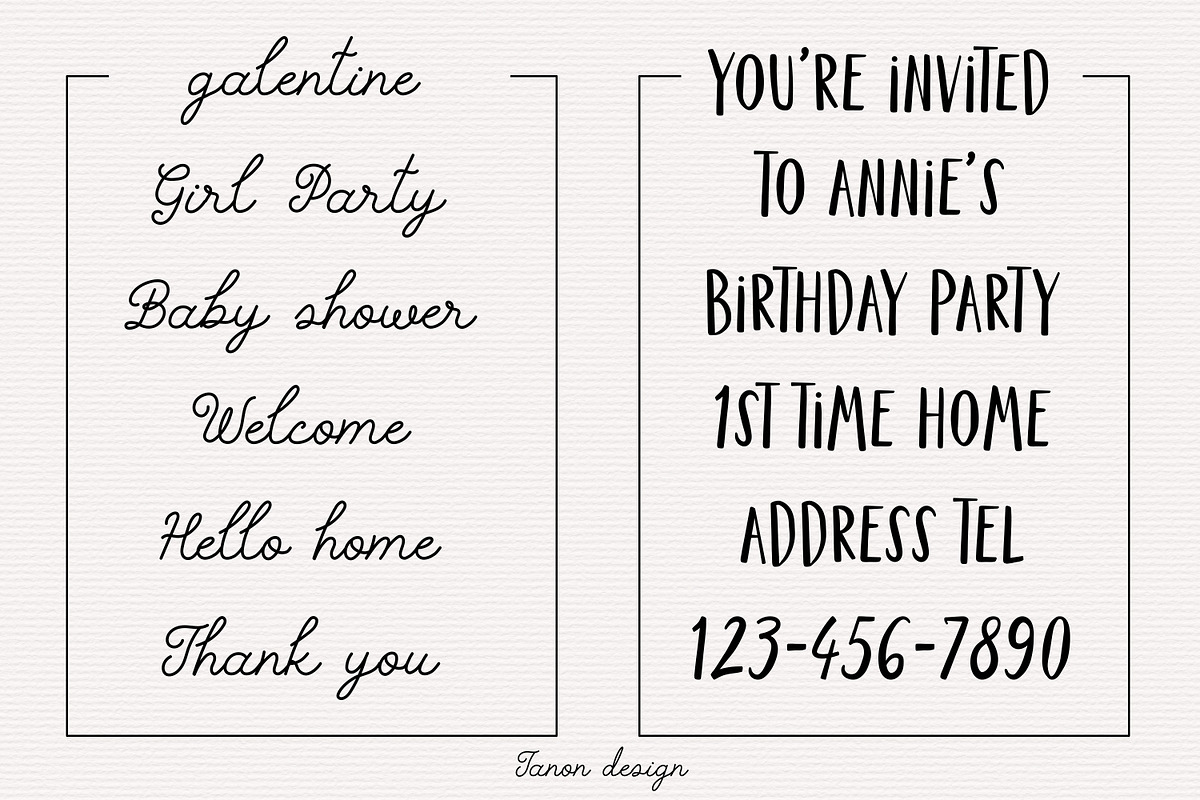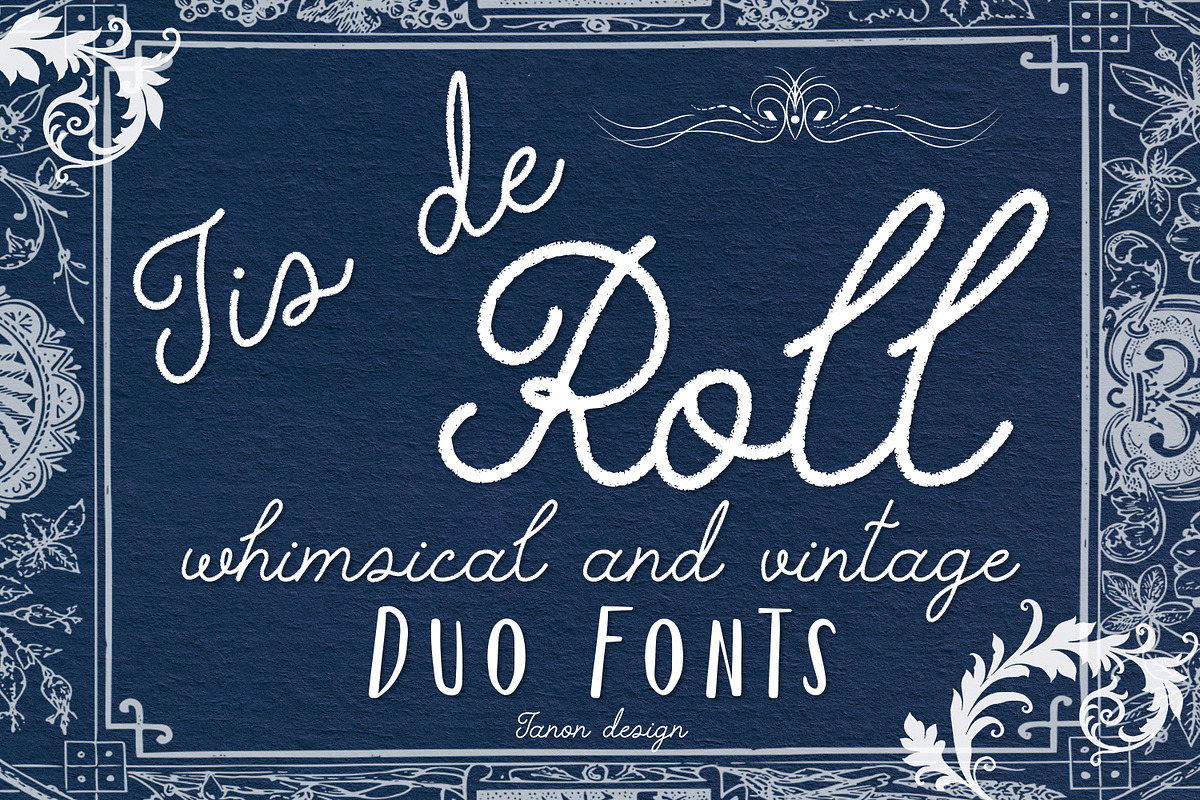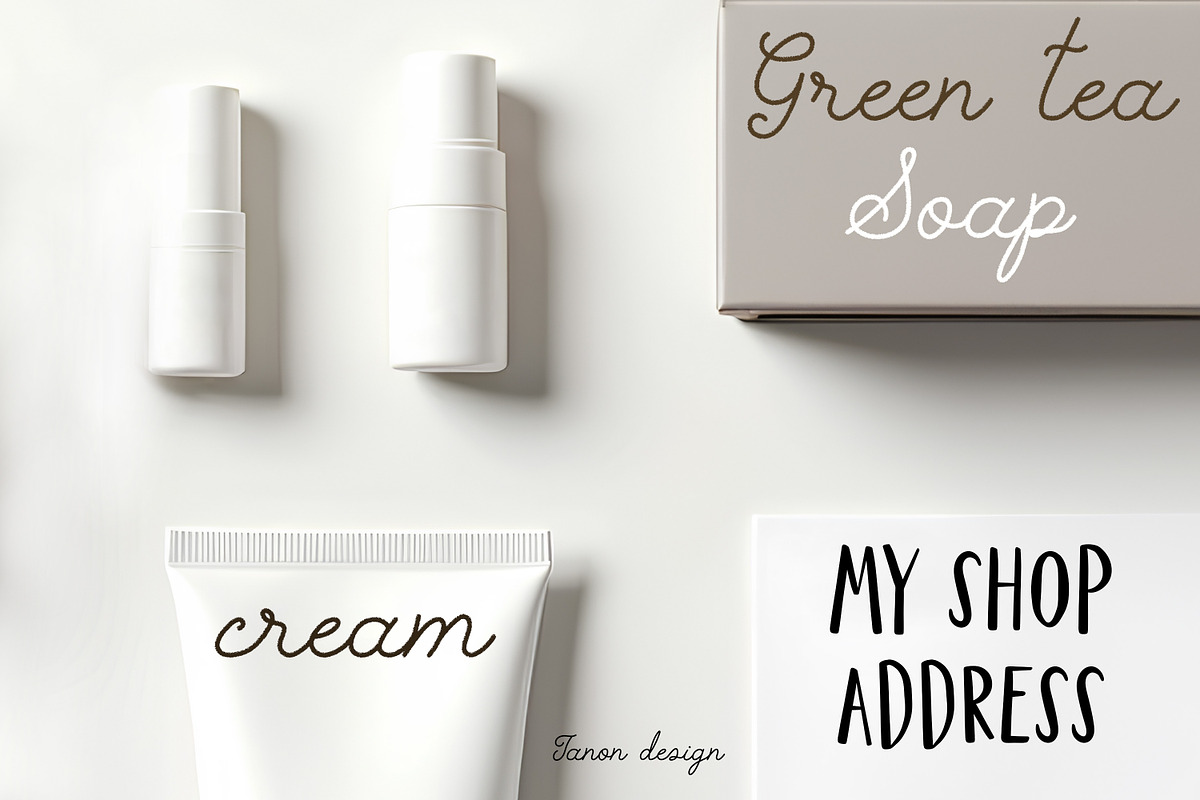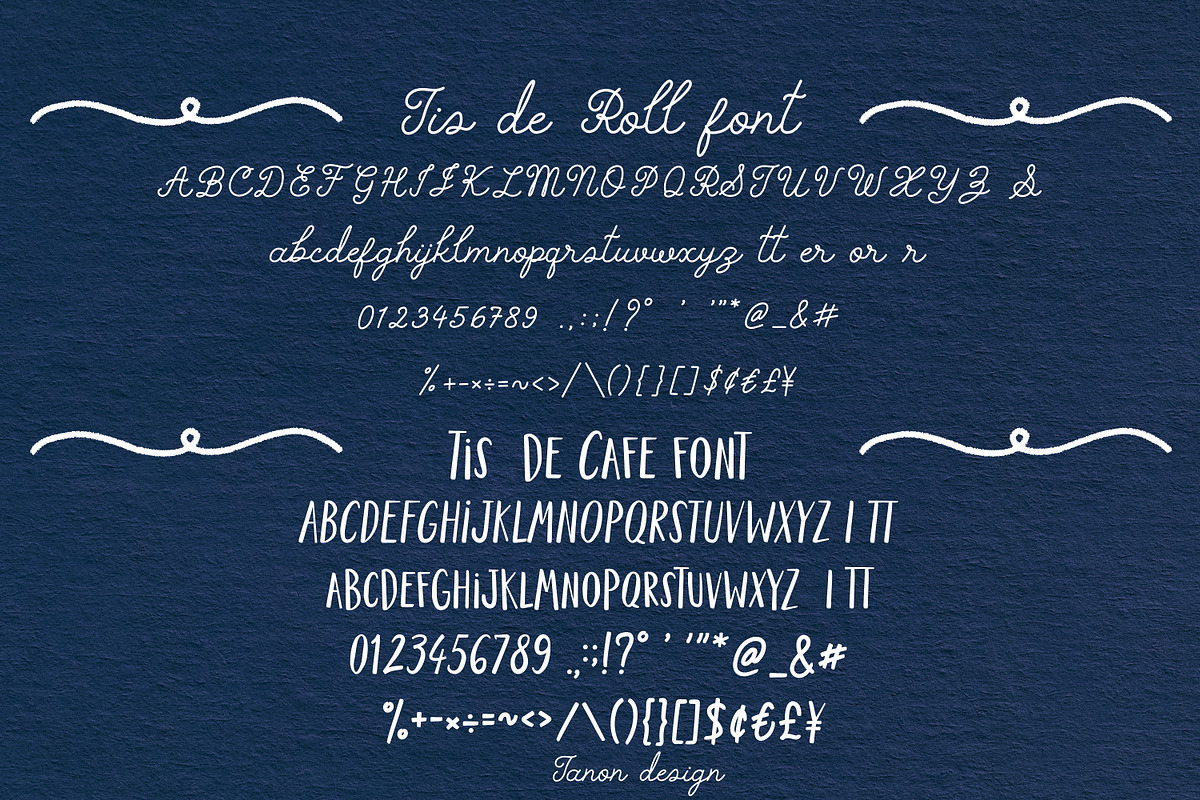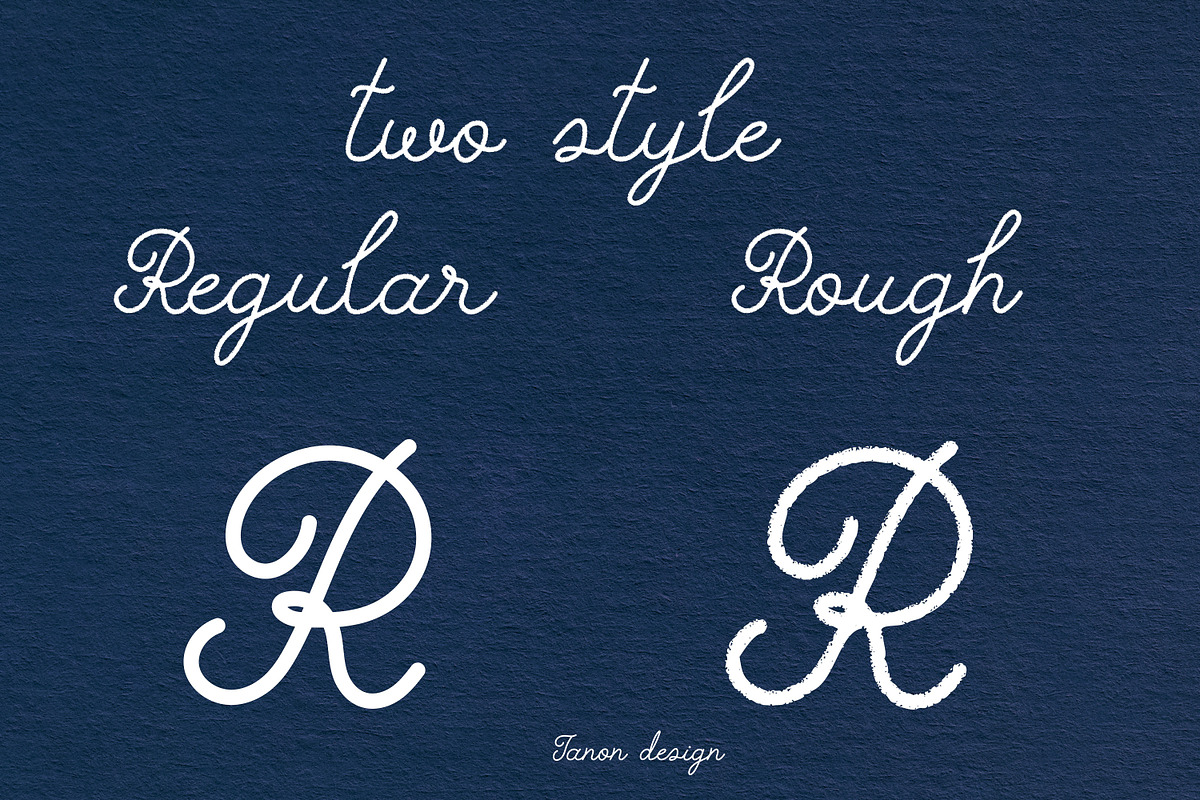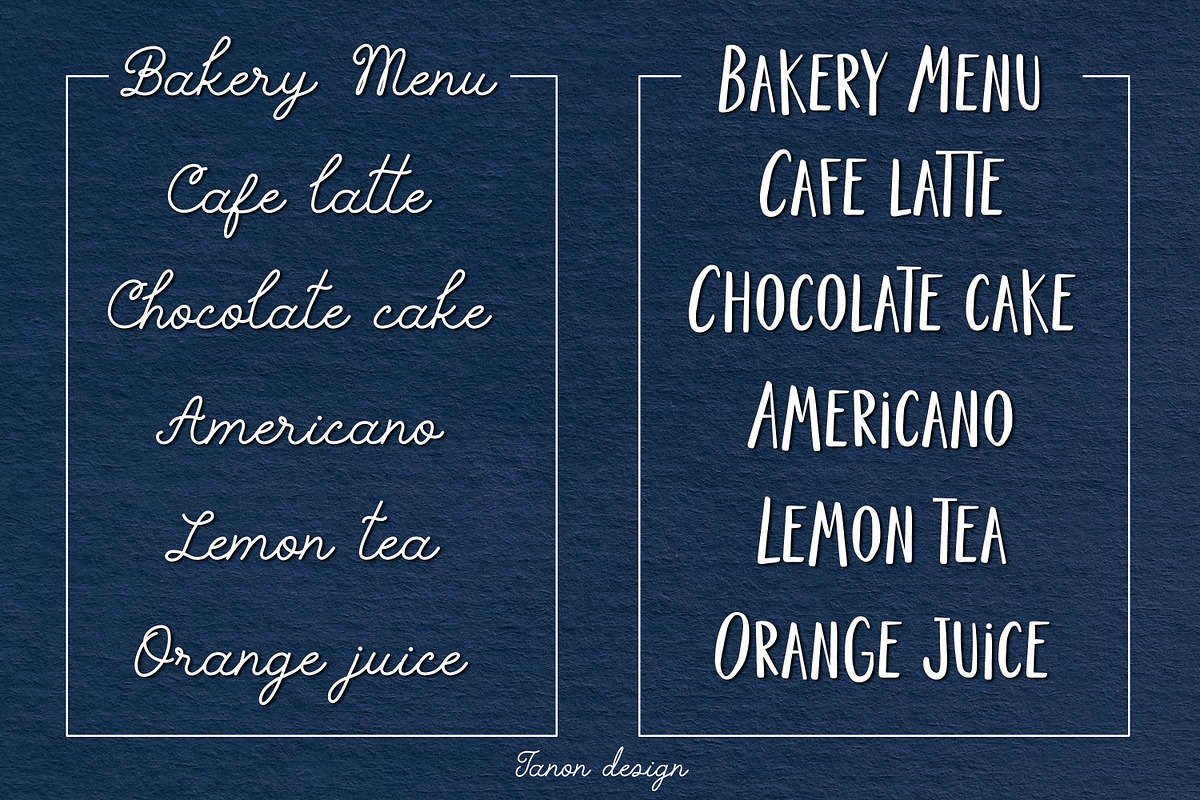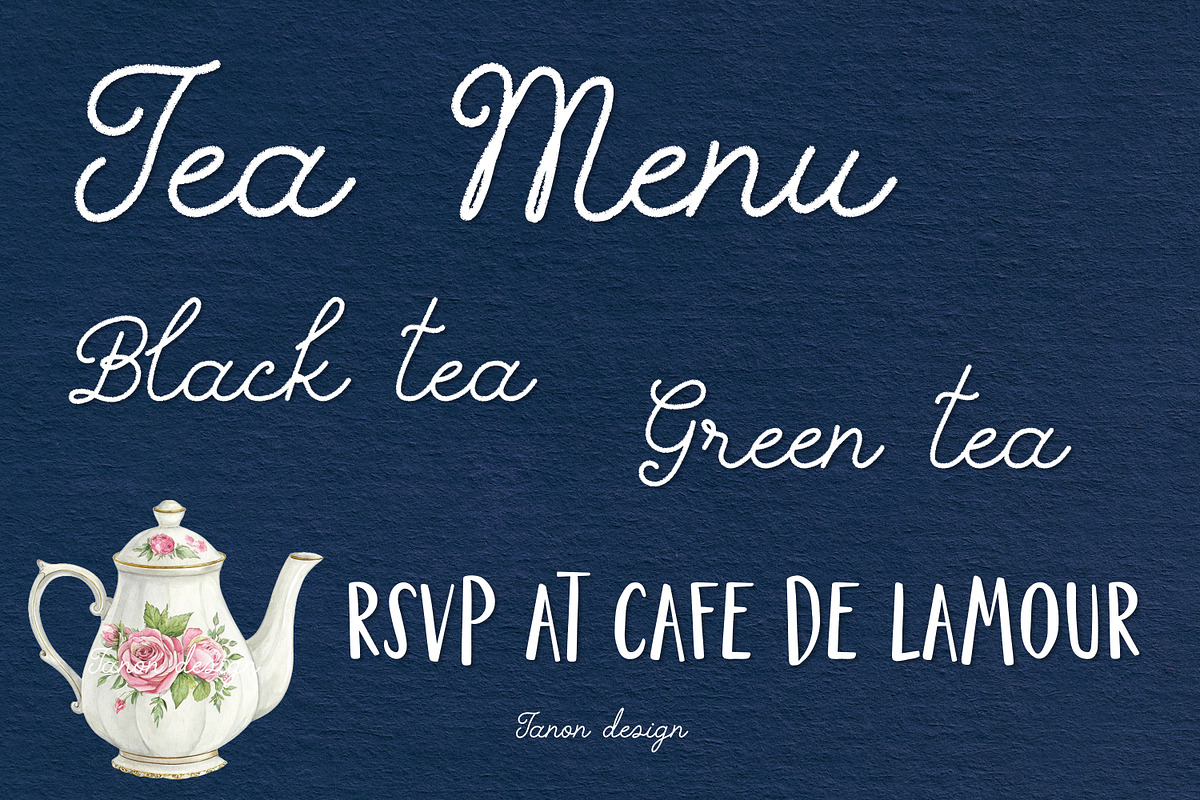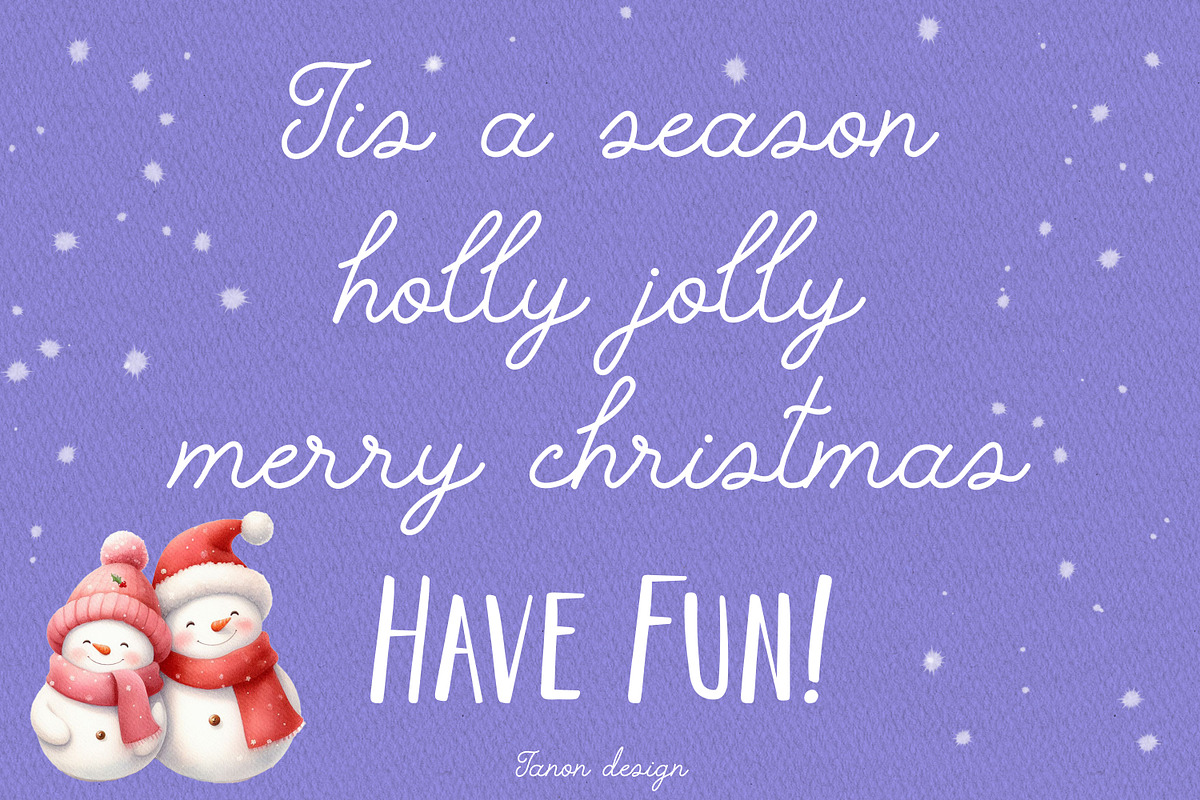
Tis de Roll Vintage duo fonts
Tis de Roll Vintage and Whimsical duo fonts Collection. Two Realistic handwritten fonts.
It will look fantastic on all your project designs, including t-shirt designs, mug designs, digital designs, crafts, cards, and any projects!